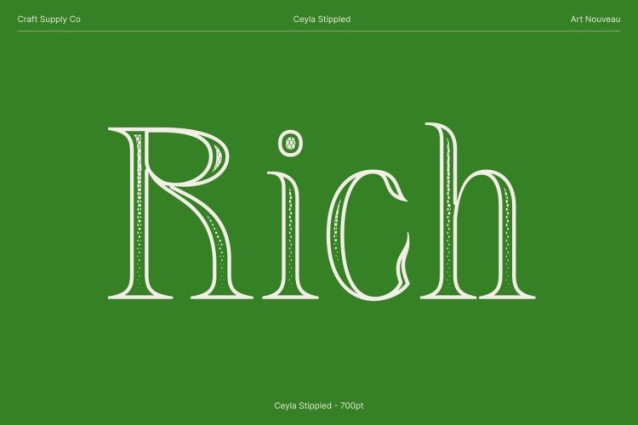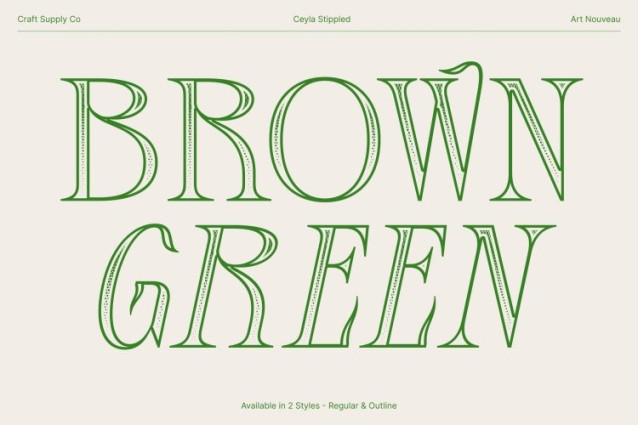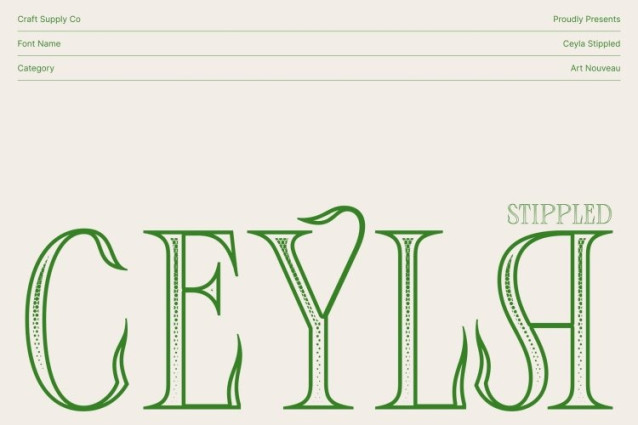
Ceyla Stippled Font
Ceyla Stippled Font This is a modern serif-display font infused with graceful Art Nouveau aesthetics and enriched by a delicate stippled texture. Flowing curves, ornamental forms, and refined proportions echo the elegance of the Art Nouveau movement, while the subtle dotwork surface introduces a handcrafted, artistic dimension. The result is a font that feels timeless, decorative, and visually expressive.
Elegant Dotwork Texture for Artistic Depth
The stippled style gives its distinctive personality. Built from dense yet refined dotted textures, the font resembles classic stippling and ink-dot illustration techniques often found in vintage posters and ornamental prints. This texture adds depth and softness to each letterform, enhancing its elegance while maintaining clarity and balance.
Versatile, Stylish, and Refined
This font’s harmonious blend of serif structure and display flair makes it highly versatile. It works beautifully across branding, editorial layouts, signage, packaging, and decorative typography. The Art Nouveau curves bring sophistication, while the stippled detailing adds a tactile, artistic quality that elevates any design.
Perfect for Elegant and Decorative Projects
From luxury brand identities and high-end magazine designs to elegant invitations and artistic posters, this font is ideal for projects that demand sophistication with character. Its Art Nouveau inspiration combined with stippled detailing ensures a classic-yet-modern look graceful, stylish, and unmistakably artistic.